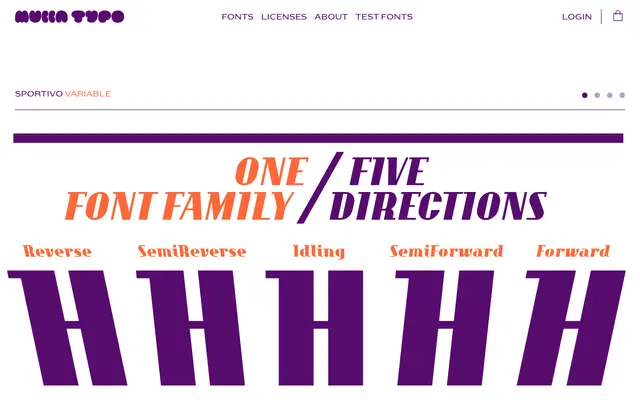
Sportivo Variable
A variable sans from Muccatypo built around a slant axis, with five named instances running from a backward-leaning Reverse through a neutral Idling to a forward-leaning Forward.
The slant axis replaces the conventional italic with a spectrum of motion-inflected styles, labelled Reverse, SemiReverse, Idling, SemiForward and Forward, each corresponding to a distinct degree of obliquing. The family ships with an extensive ligature set, alternate letterforms including a two-storey 'a' and alternate 'U', plus circled numerals and pre-built fractions. Latin Extended coverage spans Central and Eastern European languages, making it serviceable across a wide range of Latin-script contexts.
Sportivo is a geometric sans with a variable slant axis, its upright and italic variants named after motion states, suggesting a clean, structured skeleton with expressive optical variation through obliquing.